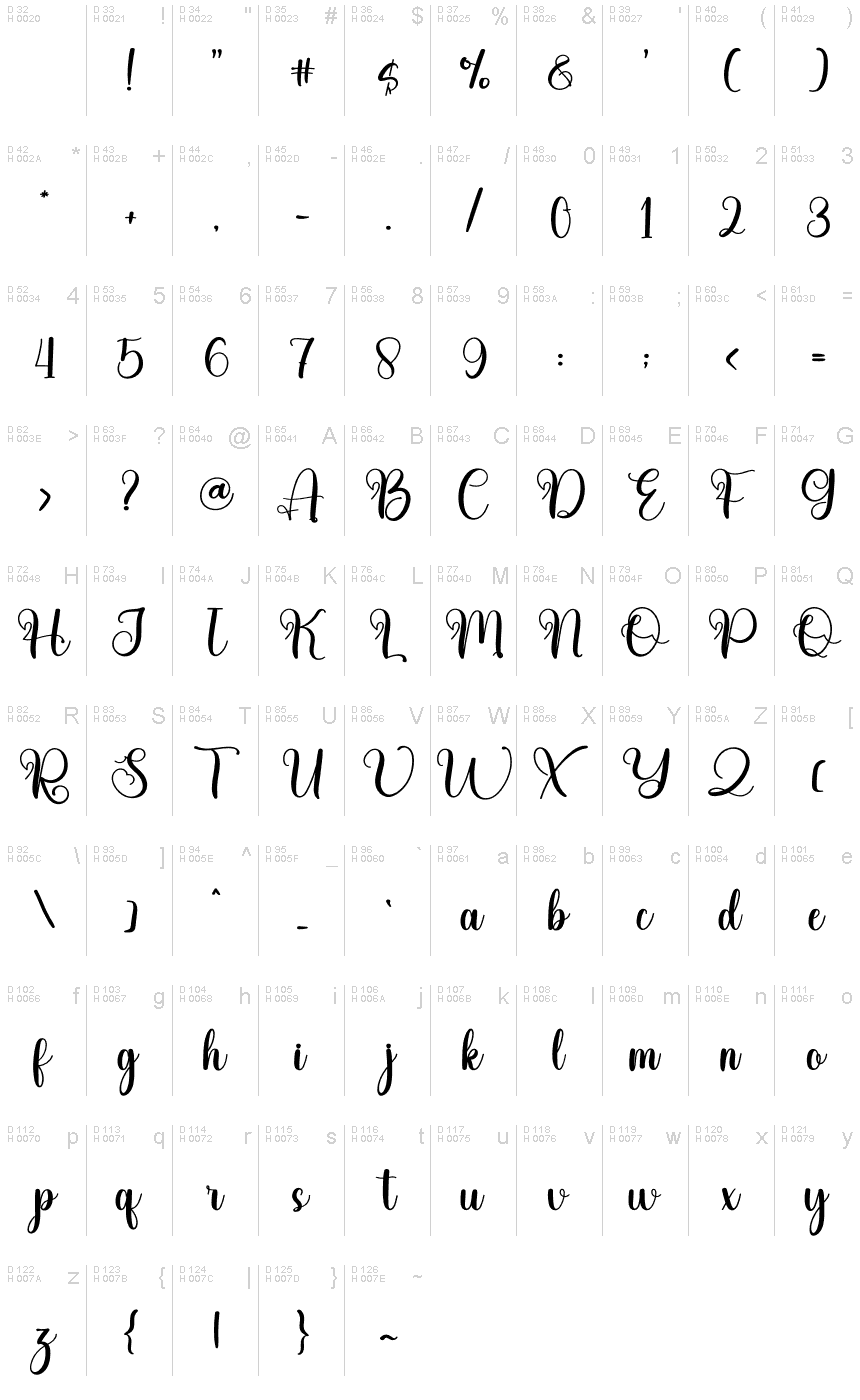
Buffalo
Buffalo, designed by FreshtypeINK, is a calligraphy font that exudes a handcrafted charm and elegance. Its sweeping curves and fine lines are reminiscent of traditional calligraphic writing, while its contemporary touch ensures it maintains a modern appeal. This font's fluidity is perfect for personal projects that require a touch of sophistication and personality.
Buffalo's aesthetic allure lies in its ability to add a bespoke feel to invitations, greeting cards, and personal branding projects. Its style provides an intimate and authentic vibe that can transform your creative endeavors into works of art. The prohibition on commercial use highlights the exclusivity of Buffalo in personal design landscapes where it can shine without the constraints of wider market exposure.